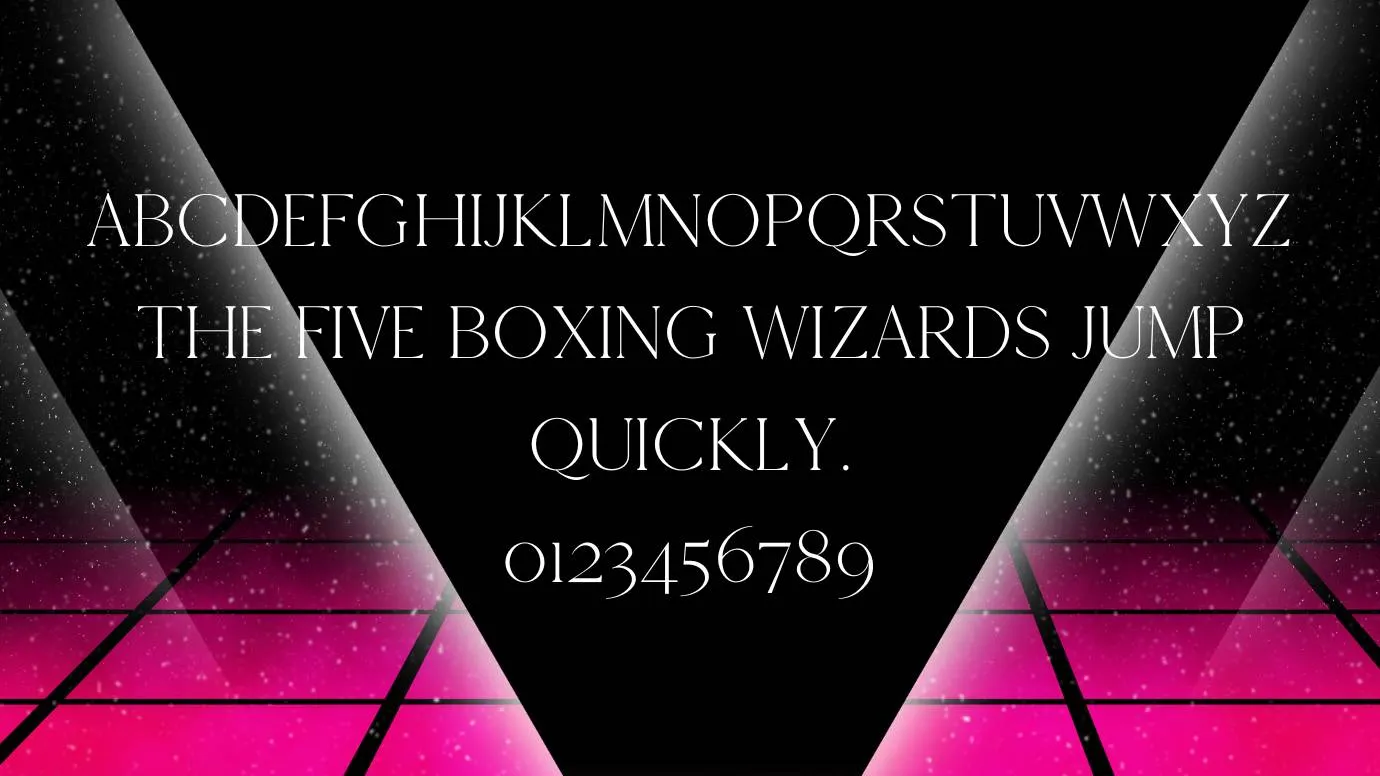
Introducing Elaris Font! Elaris is a modern look serif typeface that has elegant look and unique shape letters. This eye-catching typeface was designed by Paul van Oijen. This stylish font is a font that contains uppercase letters, numbers, and punctuation.
Its stylistic alternates and modern-look glyphs are so attractive that’s why most designers like this amazing font.  The designer can easily make combinations for different designing with alternative fonts like angle font.